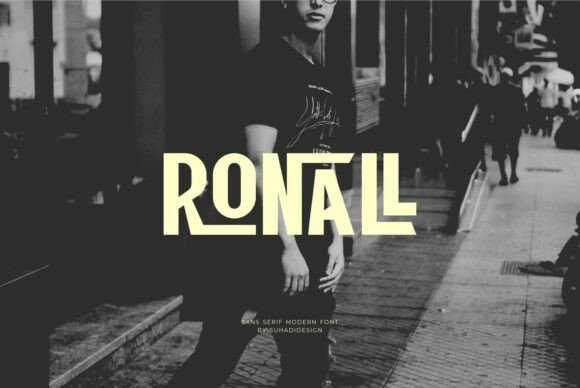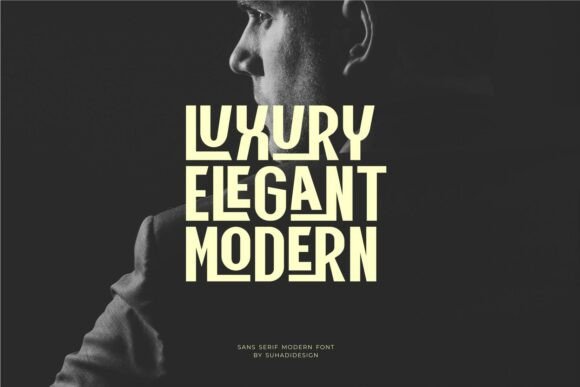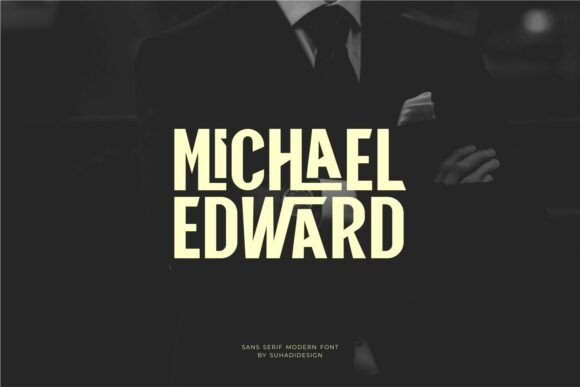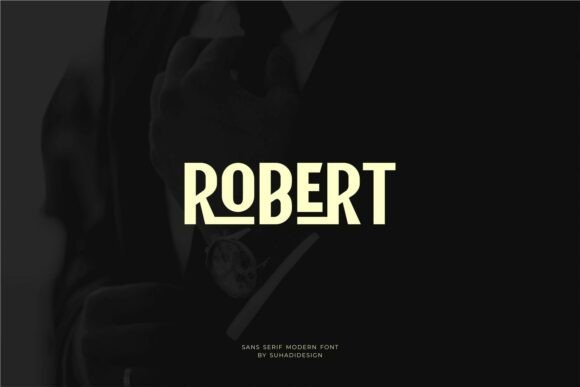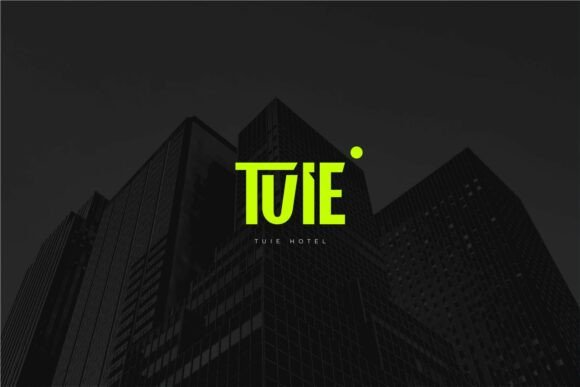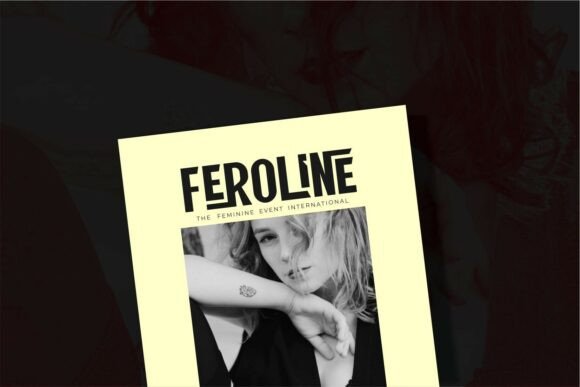
Introduction to Qiula Font
As a designer, have you ever felt stuck, searching for that perfect font to elevate your creative project and leave a lasting impression? The moment of discovery, when you stumble upon a design resource that sparks inspiration, is a thrilling one. And that’s exactly what we’re excited to share with you today – the Qiula Font, a cutting-edge all-caps sans serif font that’s about to revolutionize your design game.
With its bold geometry and modern flair, Qiula Font is designed to command attention and make a striking impact in both digital and print formats. Whether you’re working on a branding project, creating eye-catching posters, or designing streetwear-related artwork, Qiula Font’s clean, condensed build and over 130 stylish ligatures make it the perfect choice for expressing your creativity.
Key Features of Qiula Font
- High-quality design: Qiula Font is a beautifully crafted typeface perfect for creative projects requiring a unique touch.
- Unique characteristics: Qiula Font features a distinctive and elegant design, setting it apart from other fonts in its class.
Honest Review: Qiula Font
As a designer, I’ve come across many fonts, but Qiula Font caught my attention for its unique and elegant design. This font is a great addition to any design resource and can elevate a creative project to the next level.
One of the standout features of Qiula Font is its transparent background, which makes it easy to use and versatile in any design scenario. The high quality of the font ensures that it looks great on any screen or print.
Here are some things that work well with Qiula Font:
- ✨ Unique and elegant design that sets it apart from other fonts
- ✨ Transparent background makes it easy to use and versatile
- ✨ High quality ensures it looks great on any screen or print
- ⚠️ Limited character set, which may not be ideal for longer texts
- ⚠️ Not suitable for all design styles, may not work well with bold or sans-serif designs
The Qiula Font is commonly used in designs that require a high-quality, modern look. It is particularly useful for creative projects that involve text-heavy designs, such as presentations, reports, and brochures. The Qiula Font is also a great choice for designers who want to add a touch of professionalism to their designs without breaking the bank.